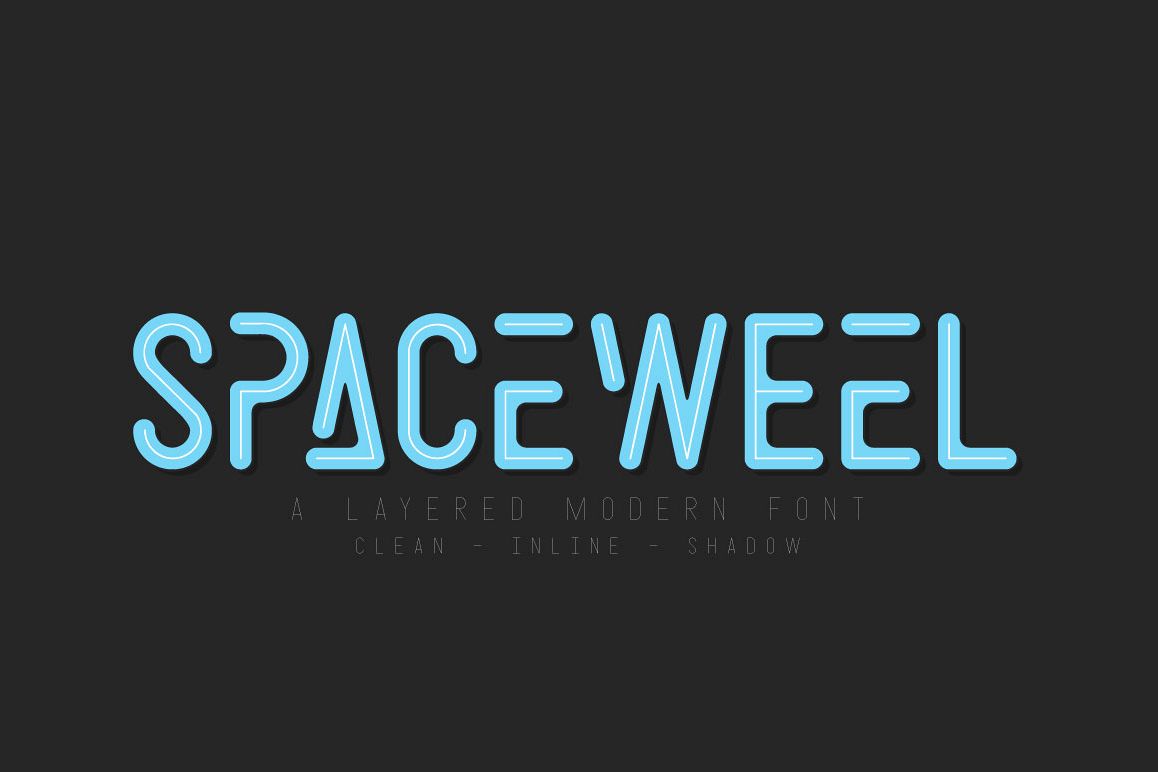
Space Weel
Space Weel Inline
Space Weel Shadow
Space Weel
Space Weel is a font inspired from modern, future
and space movie. Comes with 3 style, Clean, Inline and Shadow with
layered system it's very helpfull to get type design as you need. Have a
smooth rounded corner with modern type, suitable and applicable to
create any futuristic design, logo, branding, product packaging,
invitation, qoutes, t-shirt, label poster etc.